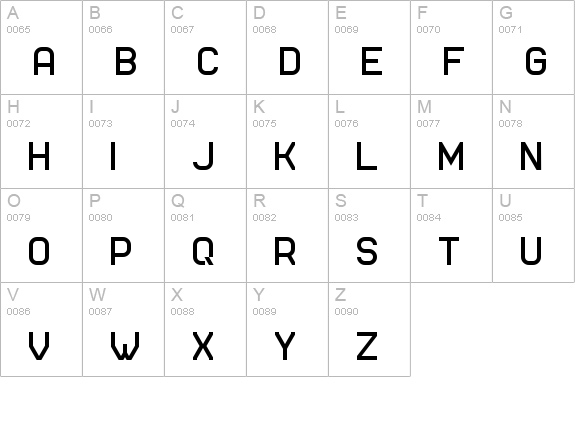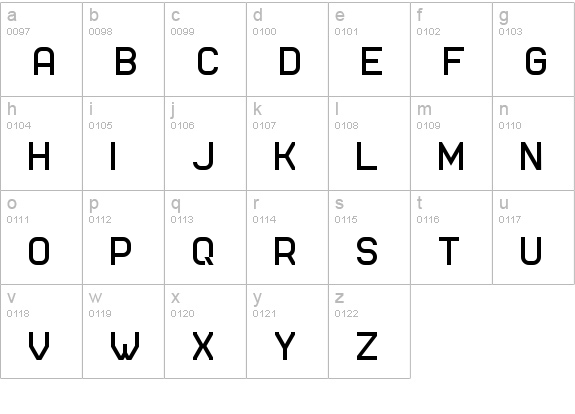
Introducing Genx Package font - a sleek and modern typeface that exudes sophistication and style. This versatile font is perfect for a wide range of design projects, from branding to advertising and beyond. With its clean lines and contemporary aesthetic, Genx Package font is sure to make your text pop and stand out. The best part? Genx Package font is completely free to download at FontsMarket.com. That's right, you can get your hands on this stunning font without spending a dime. Whether you're a professional designer looking for a new go-to typeface or a hobbyist experimenting with typography, Genx Package font is a must-have addition to your collection. Don't miss out on the opportunity to elevate your designs with the elegance and sophistication of Genx Package font. Download it for free today and take your projects to the next level!